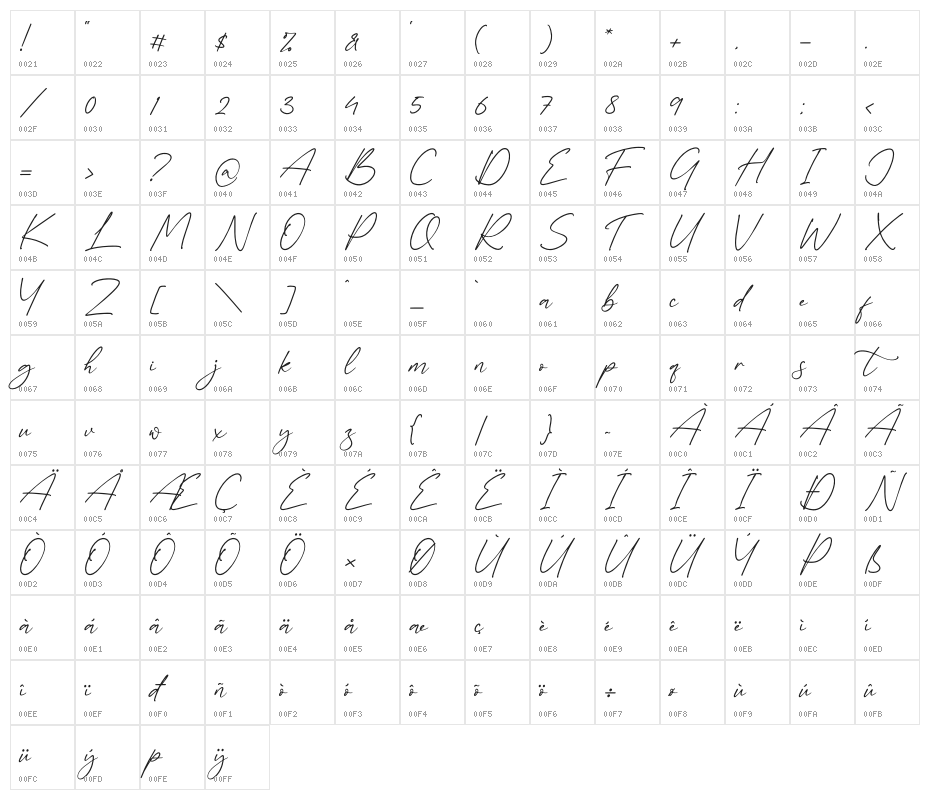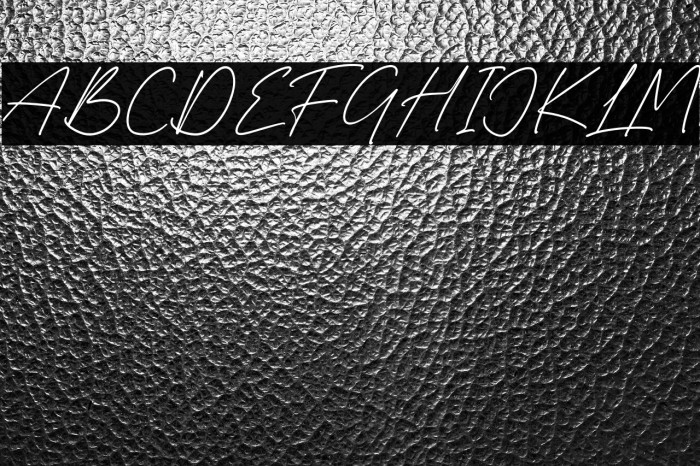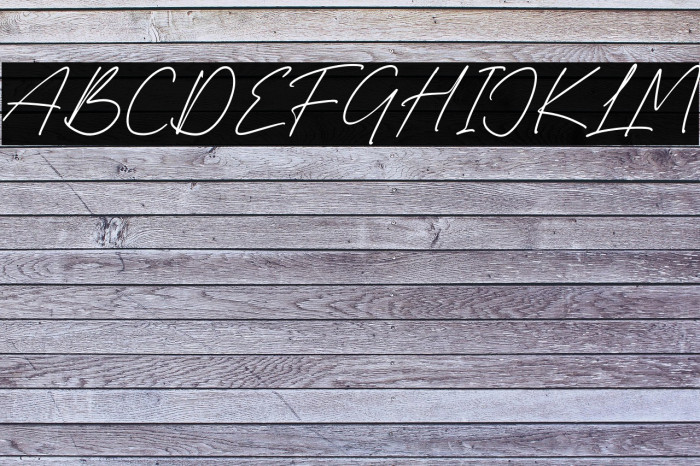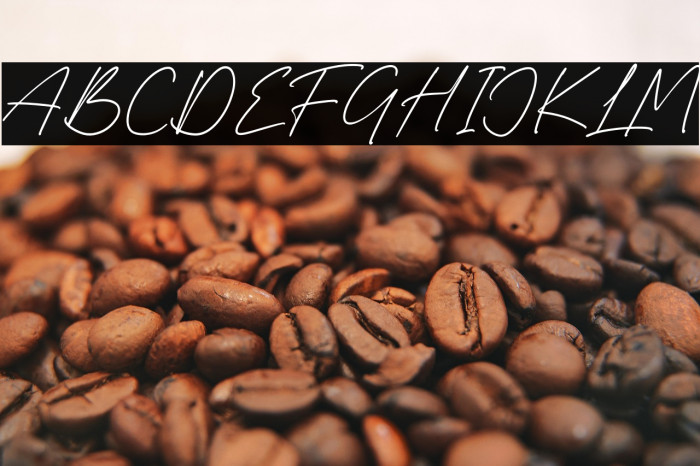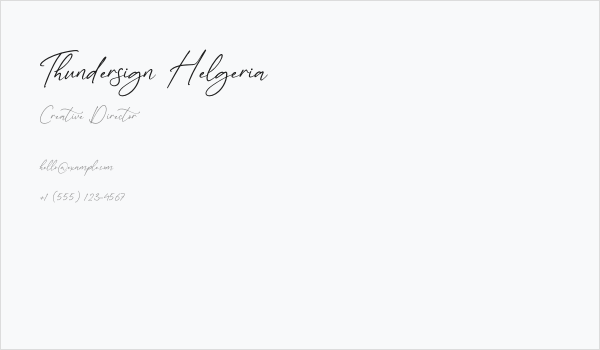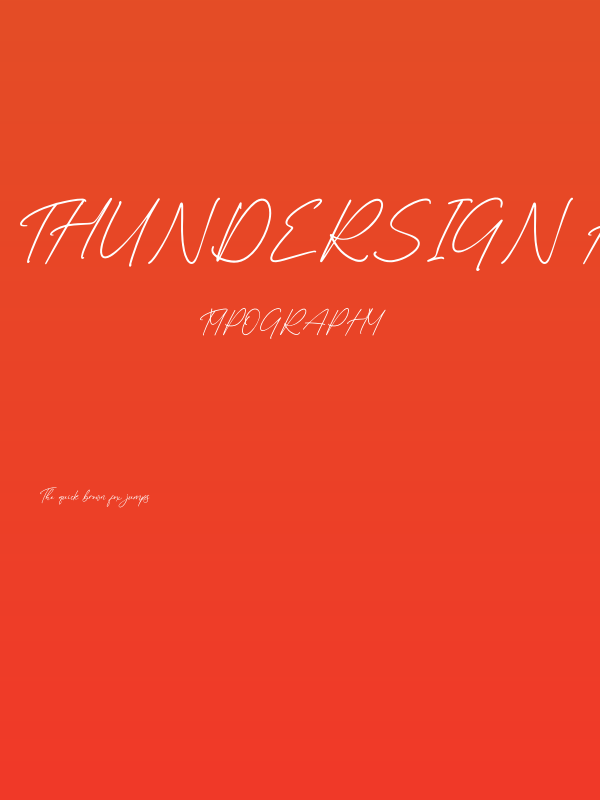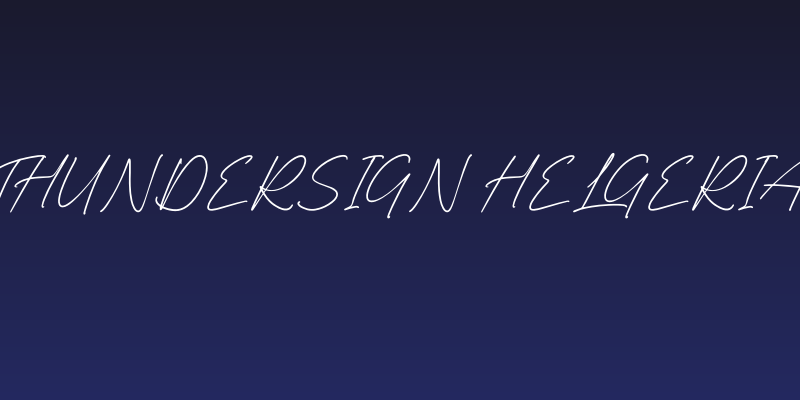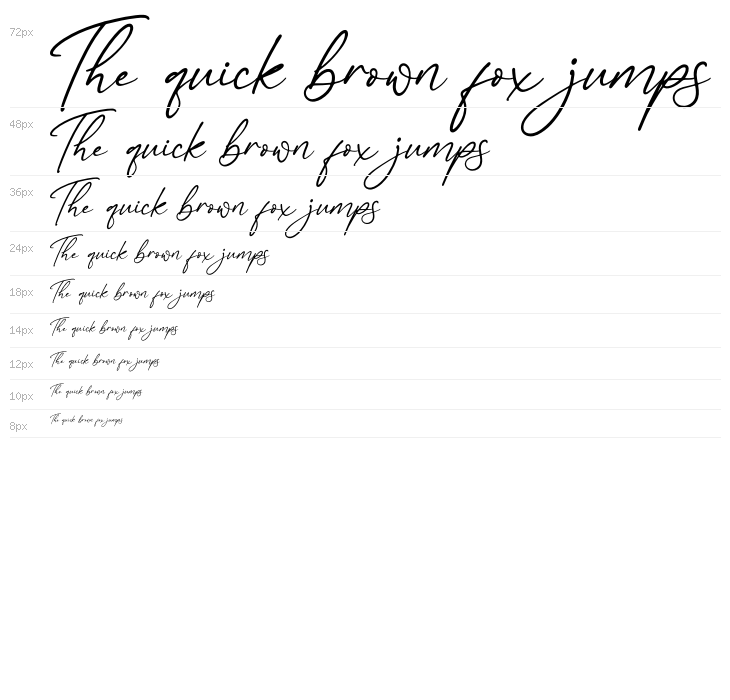
Thundersign Helgeria Font
Thundersign Helgeria Description
A flowing, elegant script font with a handwritten style, featuring smooth, connected strokes and a natural, cursive appearance.
| Use Case | Logos, Invitations, Personal branding |
| Proposed Projects | Invitations, greeting cards, personal branding. |